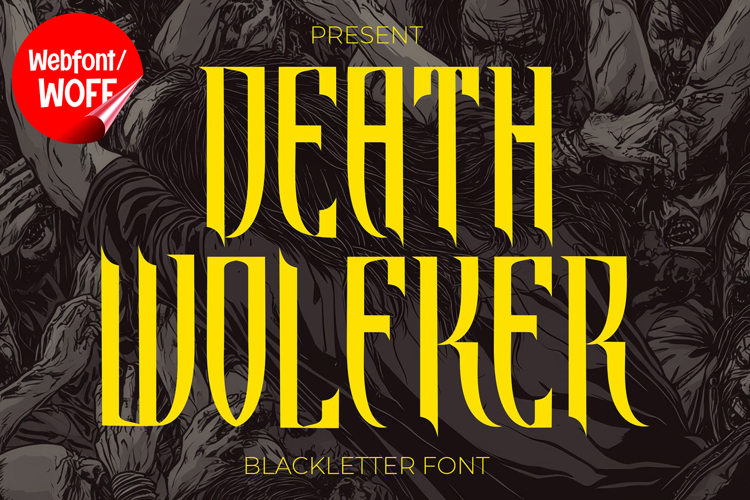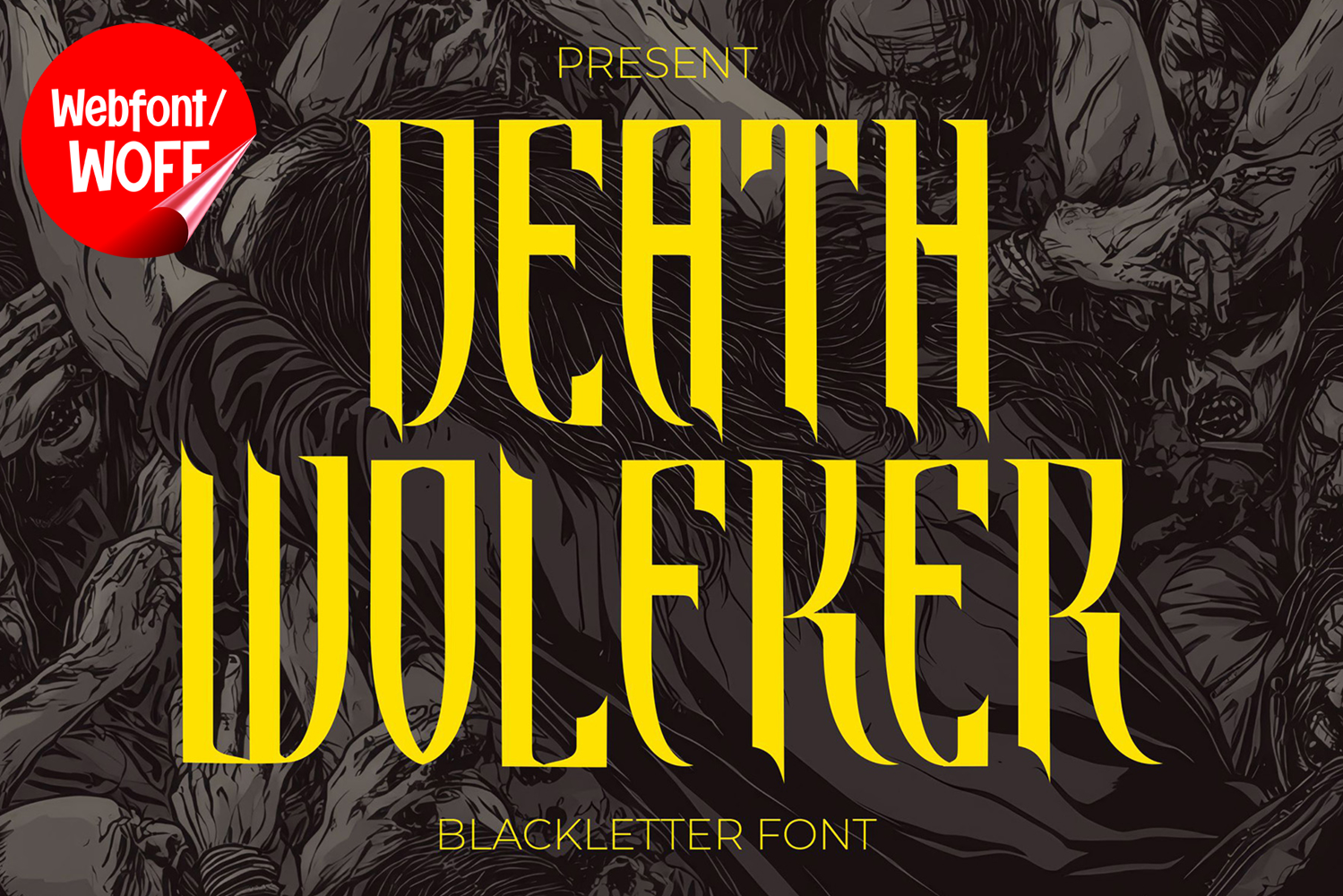
Death Wolfker | Blackletter Webfont for Dark Gothic Design
Death Wolfker is a blackletter webfont designed to bring a dark, gothic, and powerful atmosphere into modern website design. Inspired by traditional blackletter calligraphy and medieval script styles, this font features sharp edges, dramatic strokes, and intricate details that create a bold and intense visual identity. It is an excellent choice for projects that aim to deliver a strong, mysterious, and authoritative typographic presence.
Death Wolfker includes a complete set of uppercase characters designed with classic blackletter forms. The letterforms feature angular lines, pointed terminals, and decorative elements that reflect historical script influences while maintaining a modern digital balance. These characteristics make it ideal for headlines, banners, hero sections, and featured content where a bold gothic style is needed.
In addition to letters, the font includes numbers and punctuation, allowing flexible usage across various parts of a website. It works well for branding elements, music-related content, fashion labels, gaming platforms, and thematic campaigns. Each character maintains a consistent blackletter style, ensuring a cohesive and unified visual identity throughout the layout.
With multilingual support, Death Wolfker includes a wide range of accented characters, making it suitable for international websites and global audiences. This allows content to be displayed clearly across different languages while preserving the gothic and historical aesthetic.
The blackletter style of Death Wolfker makes it especially suitable for gothic-themed websites, metal music branding, tattoo design showcases, fantasy projects, and dark fashion brands. Its bold and dramatic appearance adds depth and personality, helping websites stand out with a unique and memorable look. The sharp details enhance visual storytelling and create a strong emotional impact.
Despite its intricate and decorative appearance, Death Wolfker is designed with readability in mind. The spacing and proportions are carefully balanced to ensure clarity, particularly in display sizes. This makes it effective for impactful headings and short text elements where both style and usability are important.
Death Wolfker is a webfont that combines traditional blackletter aesthetics with modern digital performance. Its sharp forms, decorative structure, and dark character create a distinctive typographic presence that enhances website design. For projects that require a bold, gothic, and visually engaging font, Death Wolfker offers a powerful and atmospheric solution.